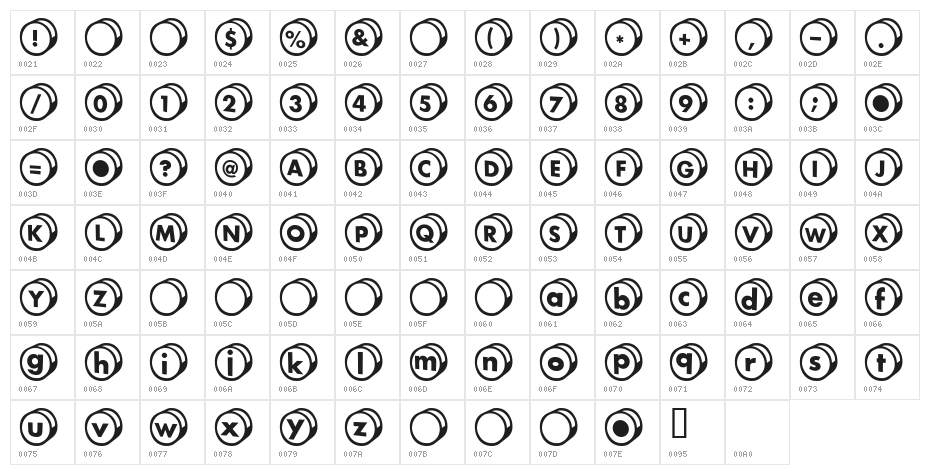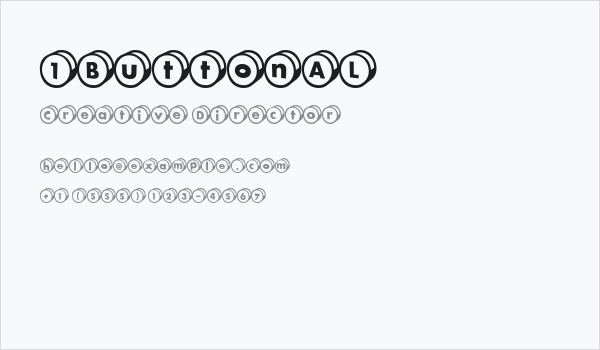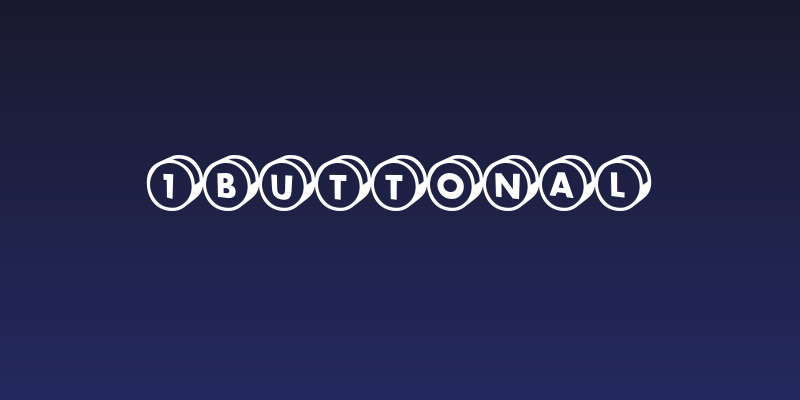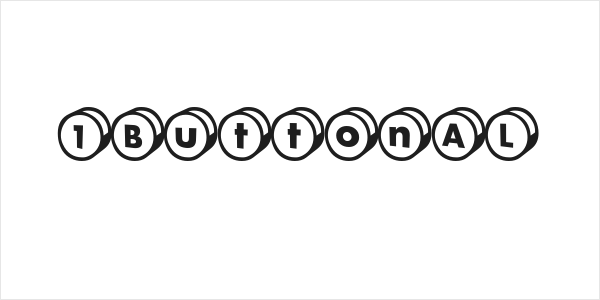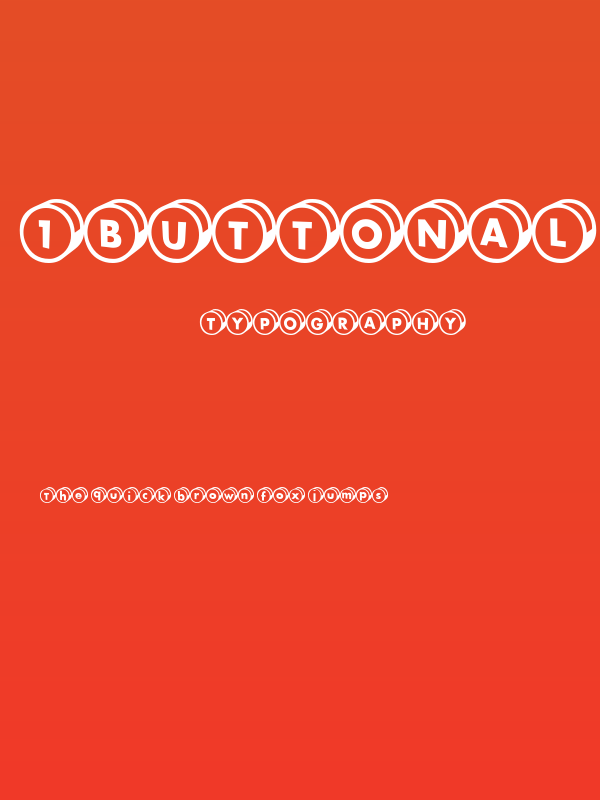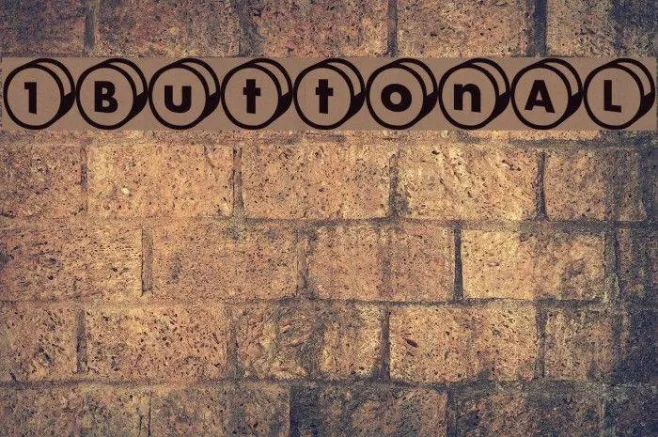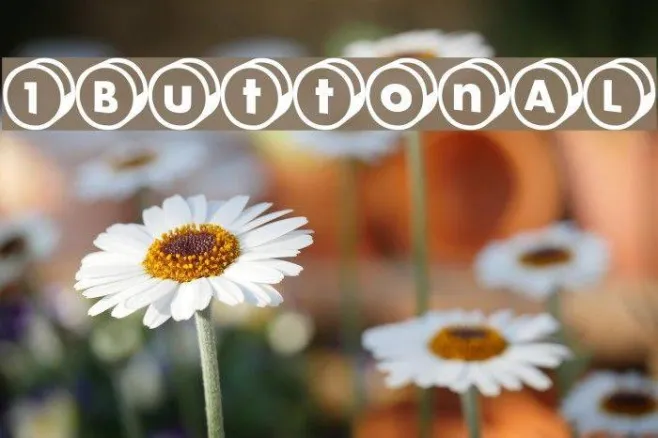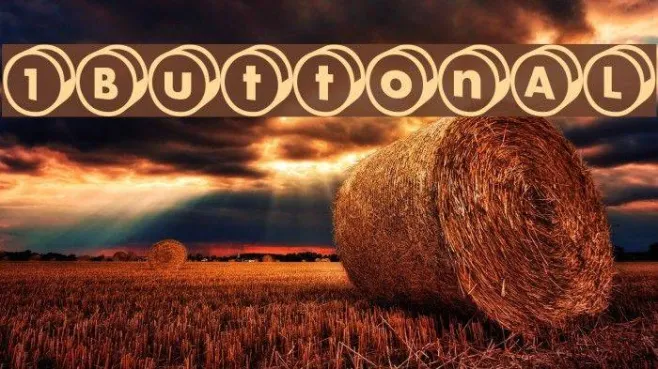
1ButtonAL Font
1ButtonAL Description
This playful and bold font features characters encased in circular outlines, creating a button-like appearance. The letters and numbers are centered within these circles, giving a uniform and cohesive look. The font has a modern and decorative style, with a strong emphasis on geometric shapes. The consistent use of circles around each character adds a unique and eye-catching element, making it suitable for creative and fun projects. The font maintains a regular weight with normal width, and the character spacing is tight due to the enclosing circles. The contrast in stroke thickness is medium, providing clear visibility while maintaining the decorative aspect.
| Use Case | Logos, Posters, Creative Projects |
| Proposed Projects | Ideal for children's books, playful branding, logos, posters, and any project requiring a fun and modern aesthetic. |